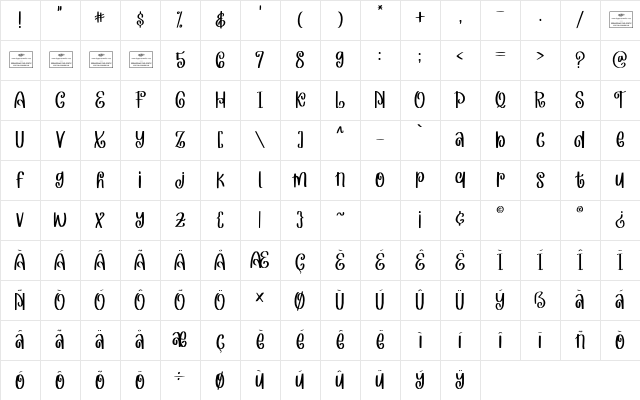
Stocking Stuffer Regular
Complete Stocking Stuffer Regular glyph index. Displaying only characters natively supported by Stocking Stuffer Regular font.
Design Context for Stocking Stuffer
Stocking Stuffer is a composed and adaptable typeface that performs quietly and consistently across a wide range of design contexts.
Pro Tip: Use Stocking Stuffer in both headline and body roles to test its range before committing to a single application.